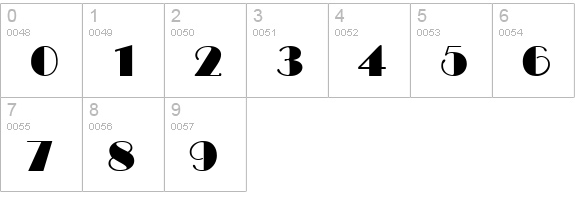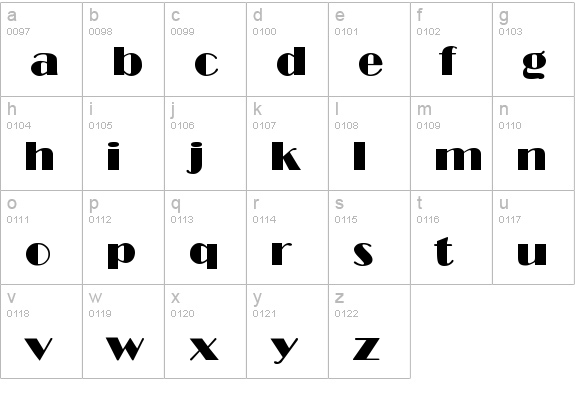
Invite SF Font Details
Invite SF is a stunningly elegant and sophisticated font that embodies the essence of modern design. This font is perfect for adding a touch of style and grace to any project, whether it be a wedding invitation, a brand logo, or even a magazine spread. With its sleek lines and graceful curves, Invite SF exudes a sense of refinement and luxury. What sets Invite SF apart is not only its exquisite design, but also the fact that it is completely free. Yes, you read that right - this high-quality font is freely available to download at FontsMarket.com. This means that you can add a touch of elegance to your designs without having to spend a penny. Invite SF is a versatile font that can be used in a variety of settings. Its clean and legible characters make it perfect for both digital and print designs. Whether you are designing a website, creating an eye-catching poster, or even crafting a beautiful wedding invitation, Invite SF will never disappoint. Not only does Invite SF offer a wide range of characters and glyphs, but it also comes with multiple weights and styles, allowing you to experiment and create unique combinations that perfectly match your vision. With its modern and timeless appeal, Invite SF is sure to make a lasting impression on anyone who sees it. So why wait? Download Invite SF today and elevate your designs to new heights of sophistication. With its free availability at FontsMarket.com, there is no reason not to add this exquisite font to your collection. Embrace the elegance of Invite SF and let your creativity soar.